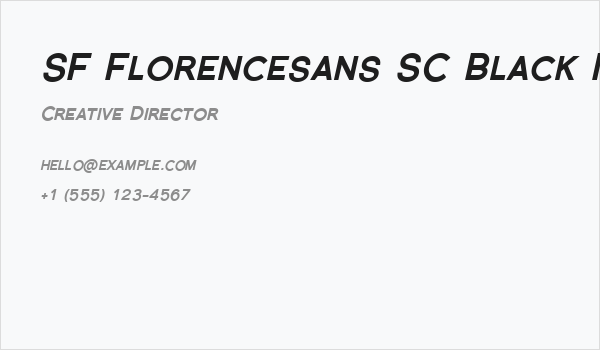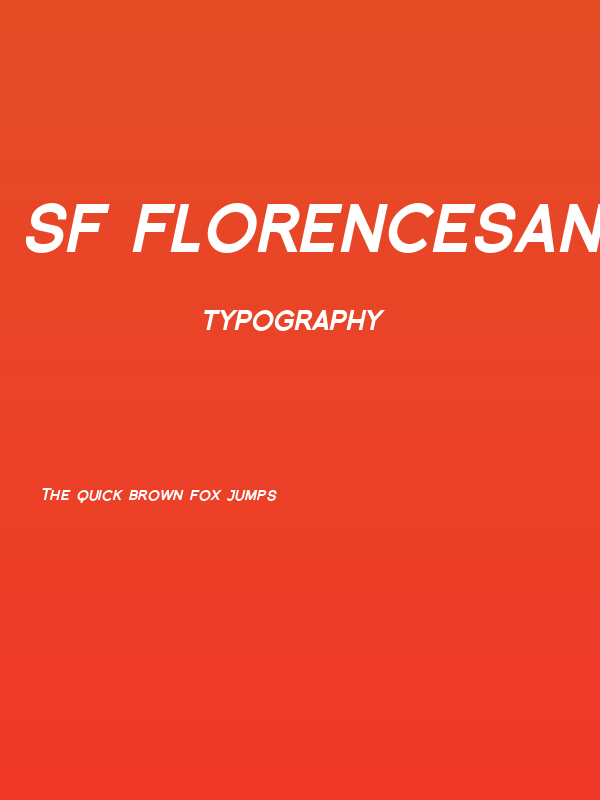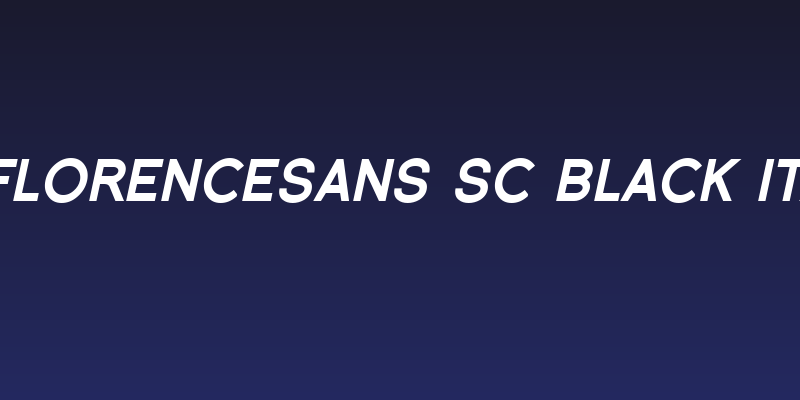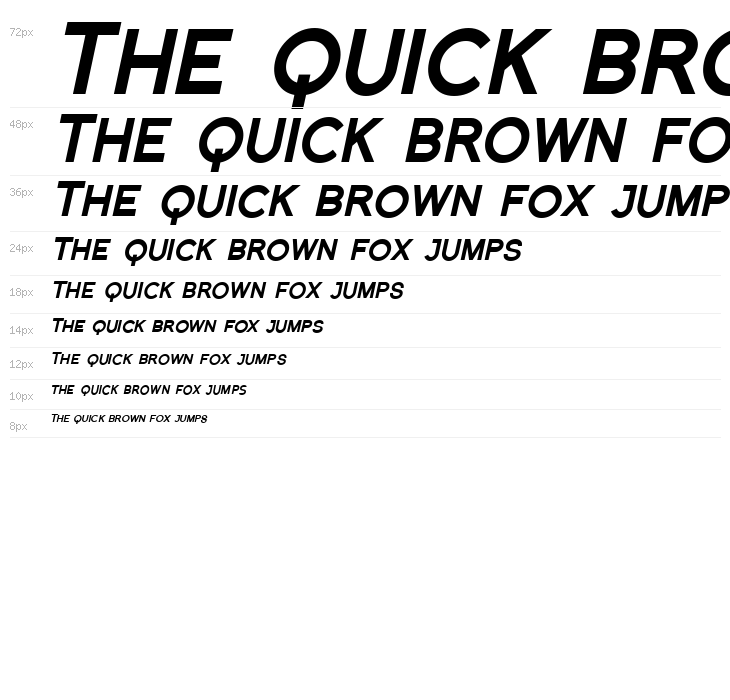
SF Florencesans SC Black Italic Font
SF Florencesans SC Black Italic Description
This font features a bold and dynamic style with a pronounced italic slant, giving it a sense of movement and energy. The characters are sans-serif, providing a clean and modern appearance. The strokes are thick and consistent, contributing to a strong visual impact. The uppercase and lowercase letters maintain a uniform height, enhancing readability. The numbers and special characters are designed with the same boldness and slant, ensuring a cohesive look across all elements. This font is well-suited for projects that require a contemporary and assertive typeface.